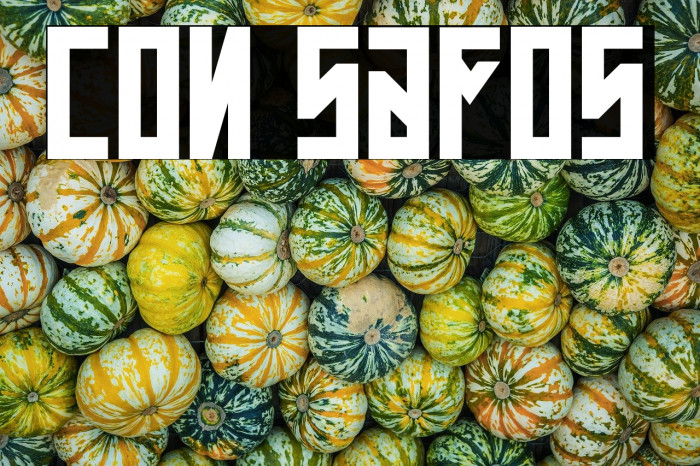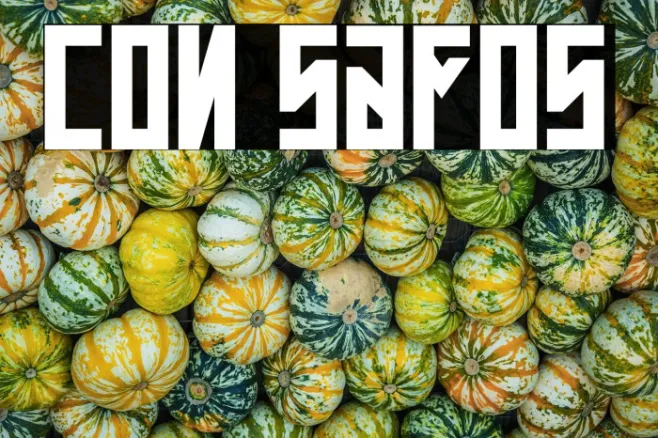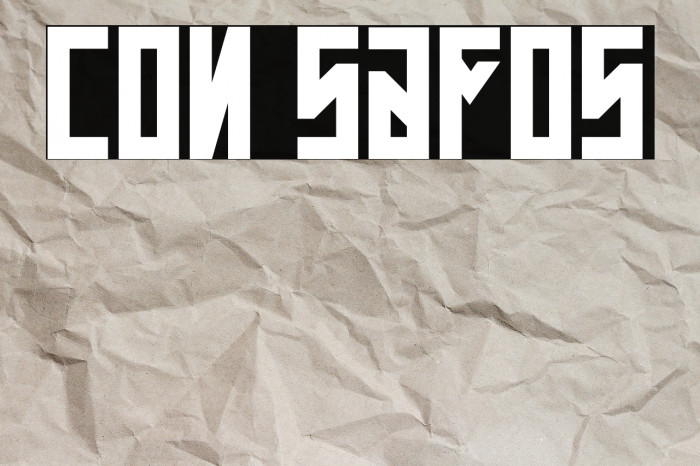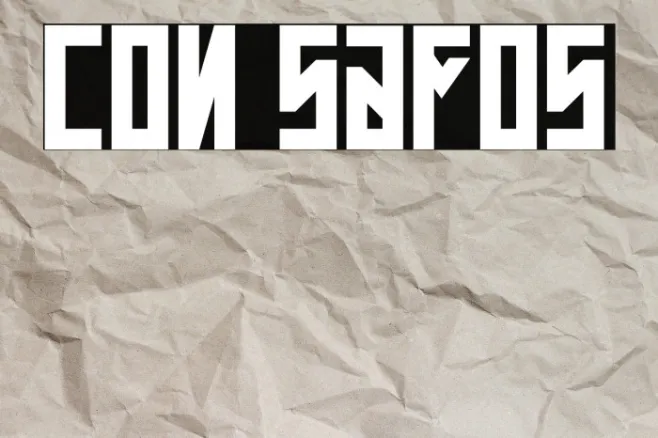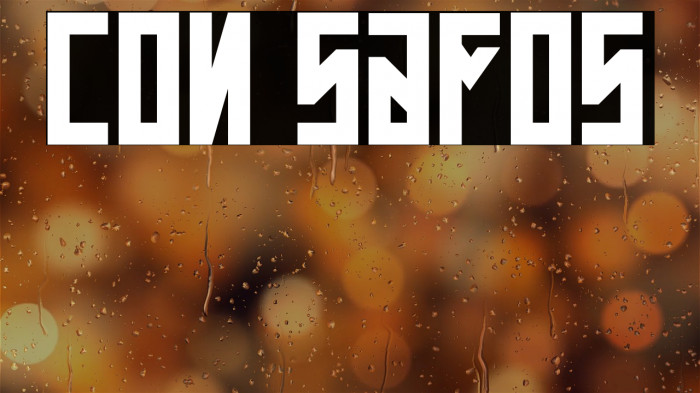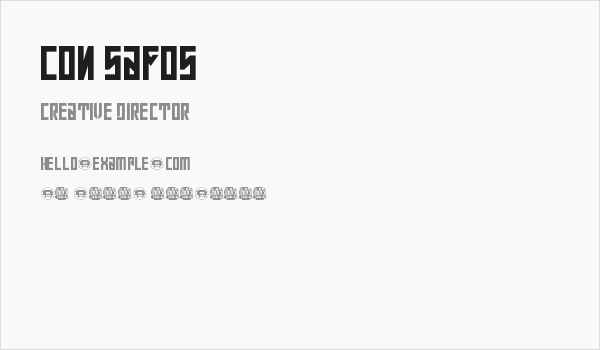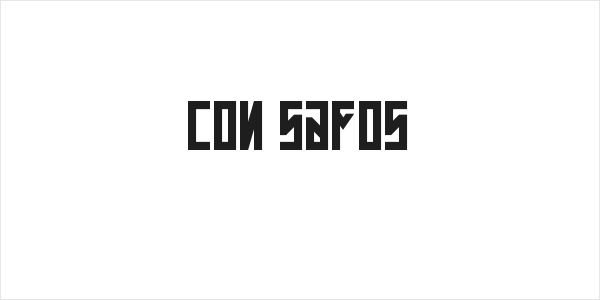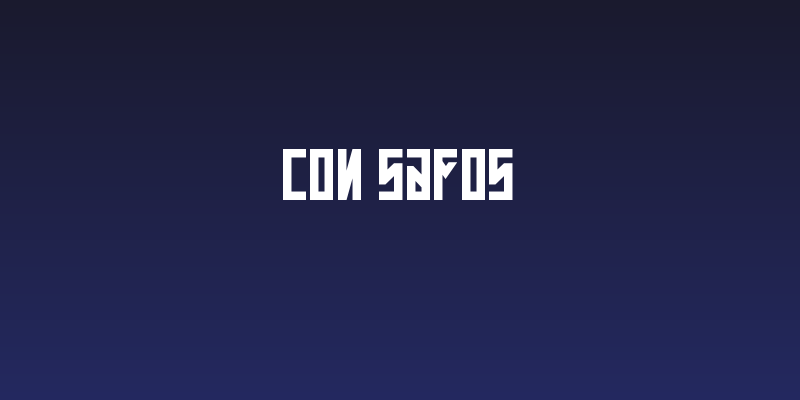
Con Safos Font
Con Safos Description
This font features a bold and striking design with a strong geometric influence. The characters are constructed with sharp angles and straight lines, giving it a modern and edgy appearance. The uppercase letters are particularly prominent, with a blocky and robust style that commands attention. The lowercase letters maintain the same angular aesthetic, ensuring consistency throughout the typeface. The numerals are equally bold, matching the overall style of the alphabet. This font is ideal for projects that require a strong visual impact and a contemporary feel.
| Proposed Projects | Perfect for branding, posters, headlines, and any design that needs a bold statement. |